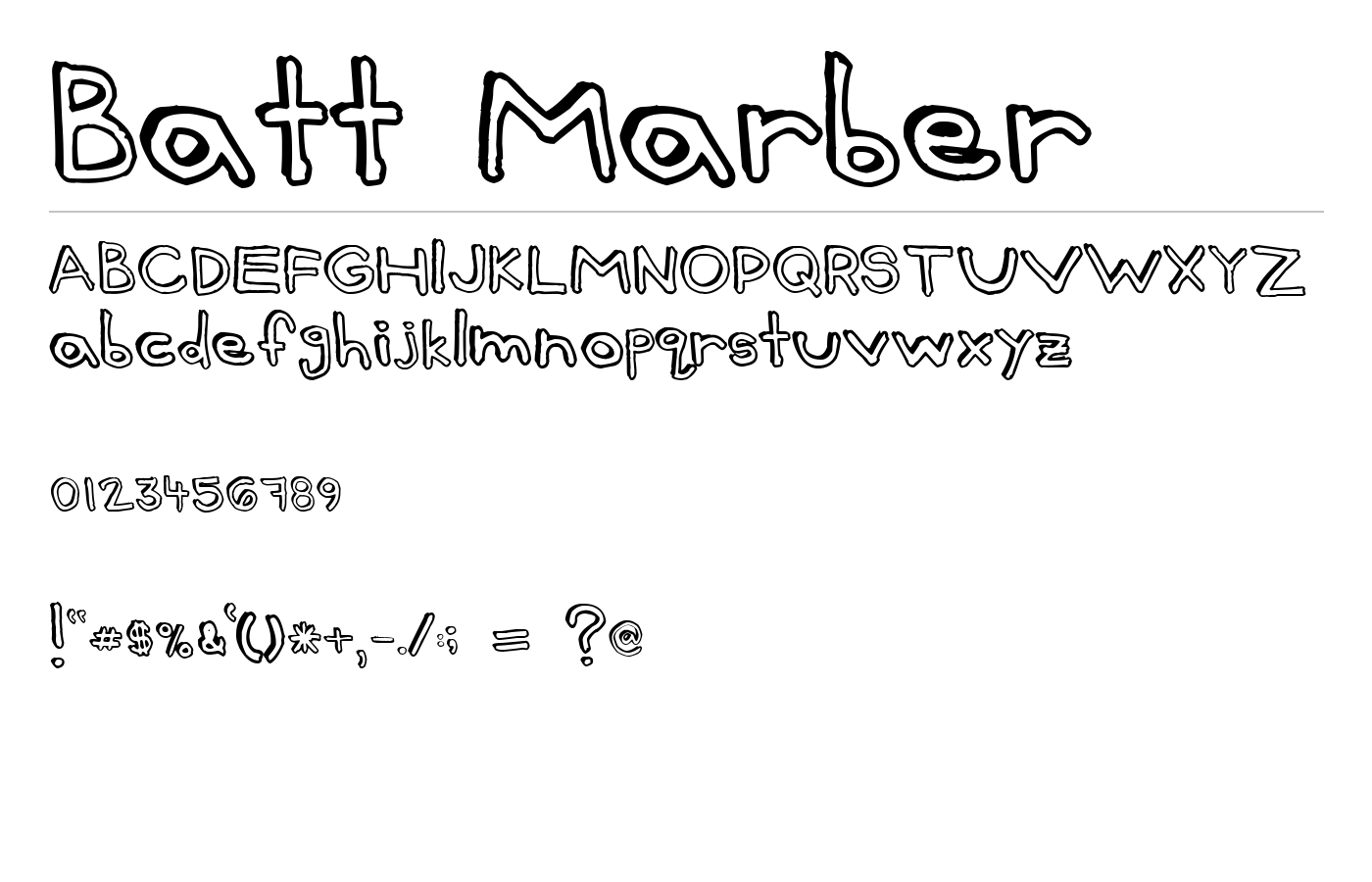
Batt Marber is a playful, hand-drawn sans serif font with a quirky, organic feel. Its uneven strokes and slightly irregular shapes give it a whimsical and casual personality, making it perfect for fun, informal design projects such as children’s books, greeting cards, or creative branding. This font works best in headlines and creative uses where a friendly, approachable vibe is desired.
Batt Marber Font
About Batt Marber Font
| Font family | Batt Marber Font |
| Designer | Max Infeld and Matt Barber |